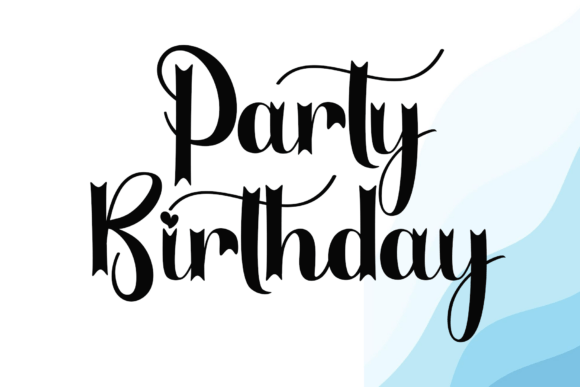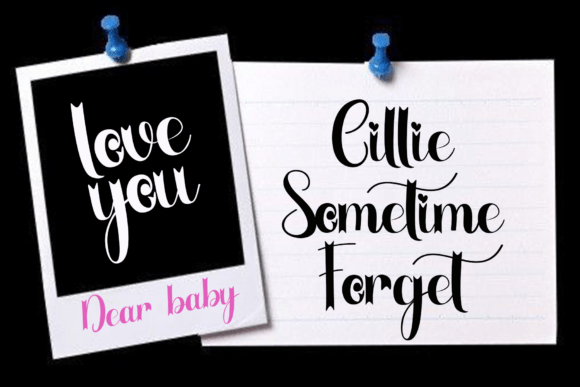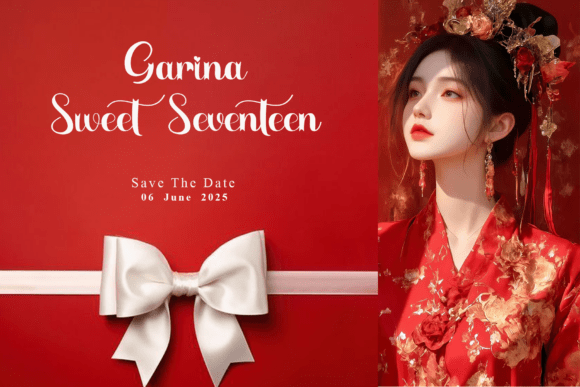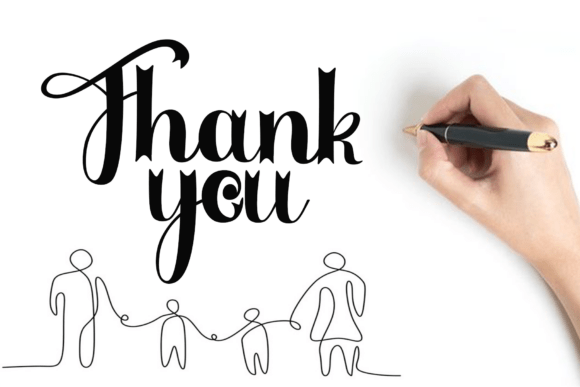
Introducing Have Family: A Timeless Handwritten Font for Modern Design
In the world of typography, a font can make or break a design project. A well-crafted font can elevate your work, adding a touch of elegance and sophistication. Have Family, a stylish handwritten font, is here to revolutionize your design endeavors. Inspired by timeless classic calligraphy, this contemporary font boasts impeccable form, balance, and variety, making it the perfect addition to your typography collection.
The Story Behind Have Family
Have Family is a carefully crafted font, designed to bring a sense of refinement and poise to your projects. Its roots lie in traditional calligraphy, where the art of beautiful handwriting is revered. The font’s creator aimed to capture the essence of classic calligraphy and infuse it with a modern twist, resulting in a unique and versatile typeface.
Key Features of Have Family
- Handwritten with a Personal Touch: Have Family boasts a warm, handwritten feel, perfect for adding a personal touch to your designs.
- Contemporary Atmosphere: This font seamlessly blends traditional calligraphy with modern sensibilities, creating a fresh and contemporary look.
- Impeccable Form: Each letter has been meticulously crafted to ensure perfect balance and harmony, making it a joy to use.
- Balanced and Varied: Have Family offers a range of characters, ensuring that your designs remain engaging and visually appealing.
Why Choose Have Family?
With so many fonts available, why should you choose Have Family? Here are just a few compelling reasons:
- Universal Appeal: This font’s timeless quality ensures it will remain relevant for years to come, making it a valuable addition to your design arsenal.
- Versatility: Have Family is suitable for a wide range of projects, from branding and advertising to packaging and digital media.
- Ease of Use: This font is easy to read and works beautifully in various sizes, making it perfect for both print and digital applications.
Design Applications for Have Family
The possibilities are endless when working with Have Family. Here are some design applications where this font truly shines:
- Logo Design: Create stunning logos that exude elegance and sophistication.
- Wedding and Event Design: Add a touch of romance and whimsy to your wedding and event materials.
- Branding and Packaging: Elevate your brand with a unique and memorable typography.
- Digital Media: Enhance your digital content, including social media graphics, blog posts, and more.
Tips for Using Have Family Effectively
To get the most out of Have Family, keep the following tips in mind:
- Experiment with Sizes and Colors: Play with different sizes and colors to create visual interest and hierarchy.
- Mix and Match with Other Fonts: Combine Have Family with other fonts to create a unique and engaging typography.
- Pay Attention to Spacing: Ensure adequate spacing between letters and lines to maintain readability and aesthetics.
Have Family is a stunning handwritten font that brings a touch of classic elegance to modern design. Its impeccable form, balance, and variety make it an excellent choice for designers and crafters seeking to elevate their projects. With its universal appeal, versatility, and ease of use, Have Family is sure to become a staple in your typography collection.
Whether you’re working on a logo, branding, packaging, or digital media, Have Family is the perfect companion to help you create visually stunning designs that leave a lasting impression.